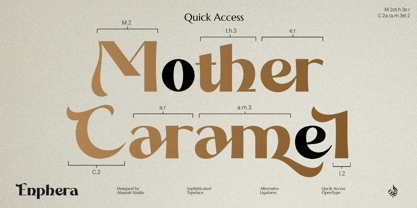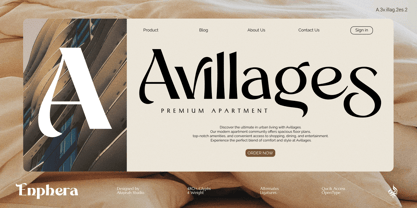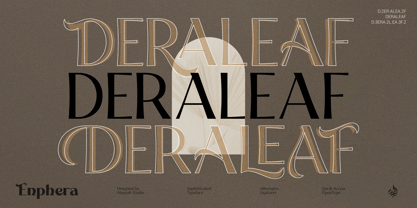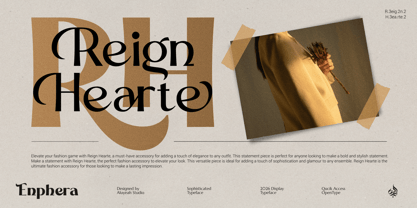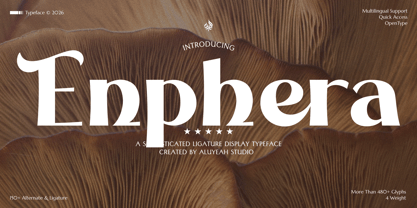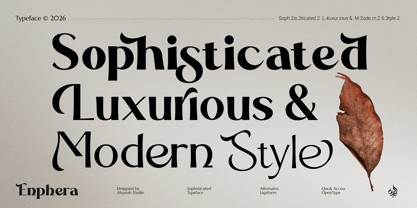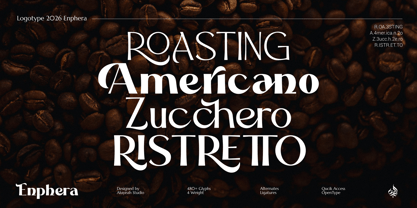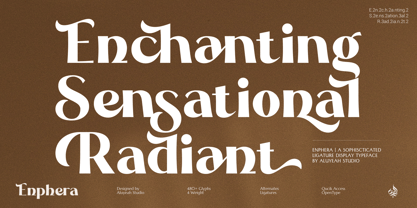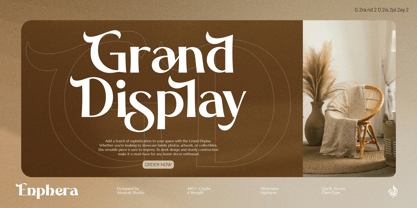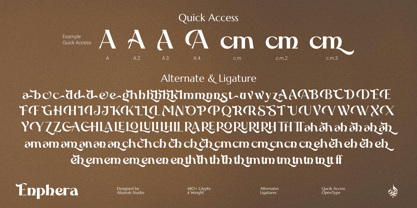
Al Enphera
by Aluyeah Studio
The Al Enphera Font Family was designed by Linggar Sundoro and published by Aluyeah Studio. Al Enphera contains 4 styles and family package options.
Hello Aluyeaholics! Introducing Enphera - A Sophisticated Ligature Display Typeface! We love crafting fonts that are visually appealing and user-friendly. Our goal is to ensure anyone can easily use our fonts, regardless of their design background. By providing quick access features, We create fonts that are easy to work with. Making design accessible and enjoyable for everyone drives our passion, and we hope my fonts bring creativity to your projects! Our brand new display font Enphera, a stylish ligature display typeface that exudes both sophistication and versatility. Featuring 4 weights, more than 480+ glyphs, multilingual, and quick access to over 150+ alternates and ligatures. Ideal for crafting captivating designs, Enphera is a must-have for any designer looking to elevate their work. Quick Access - You can easily call alternates using quick access combination like A.2 A.3 A.4 c.h c.h.2 c.h.3 etc. To get the preview-like result, you can use the quick access combination E.2n.2ph.3e.r(a)